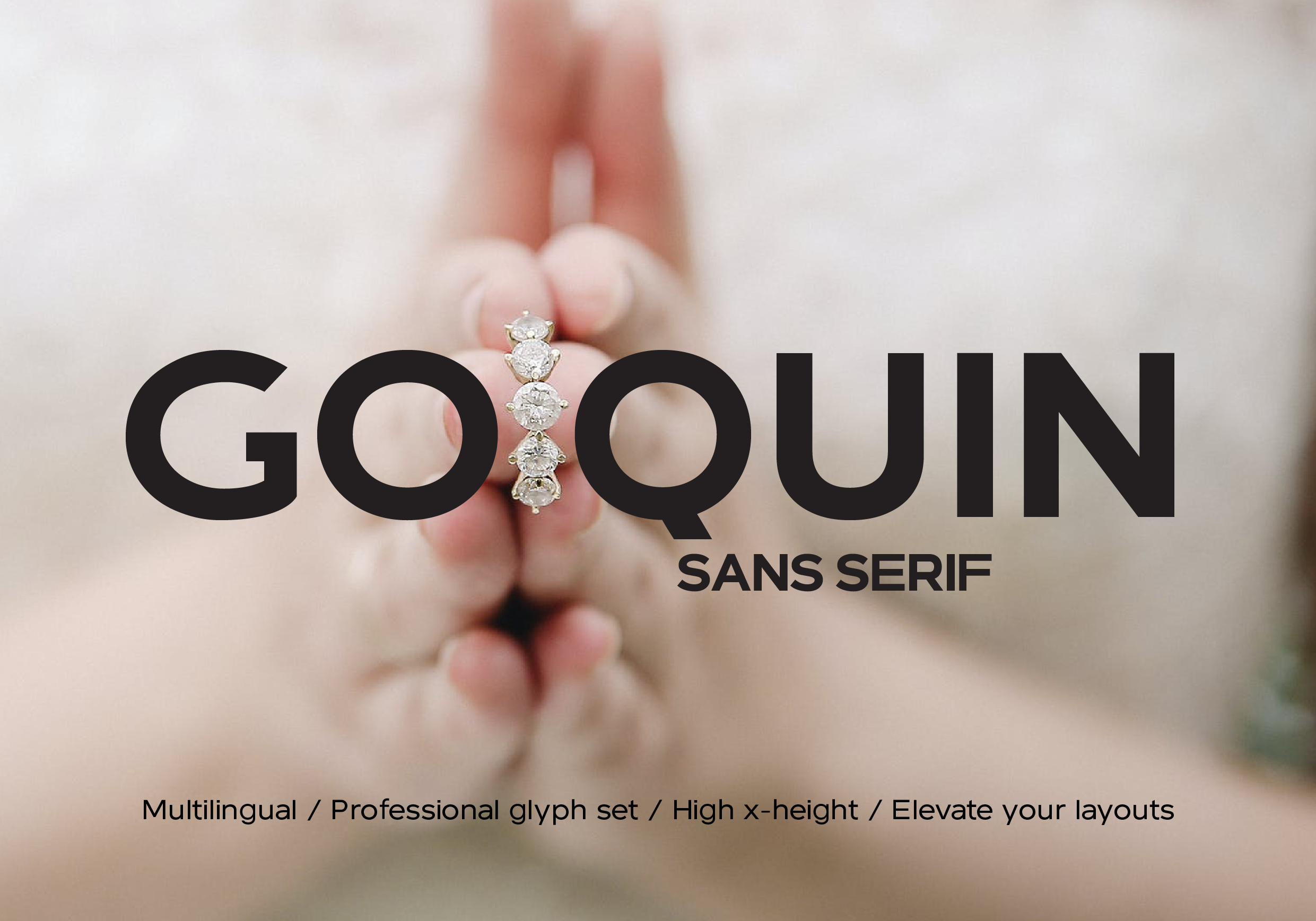
Go Quin is an ultra modern luxurious sans serif – perfect for all of your high-end projects. Whenever you need instant class and credibility – Go Quin sans serif is there for you. With its high x-height, clean lines, and grace, you can take your layouts next-level with Go Quin. Foreign-language-friendly. OTF and TTF. Light, Regular, and Bold – plus slanted of each. What will you make with Go Quin?